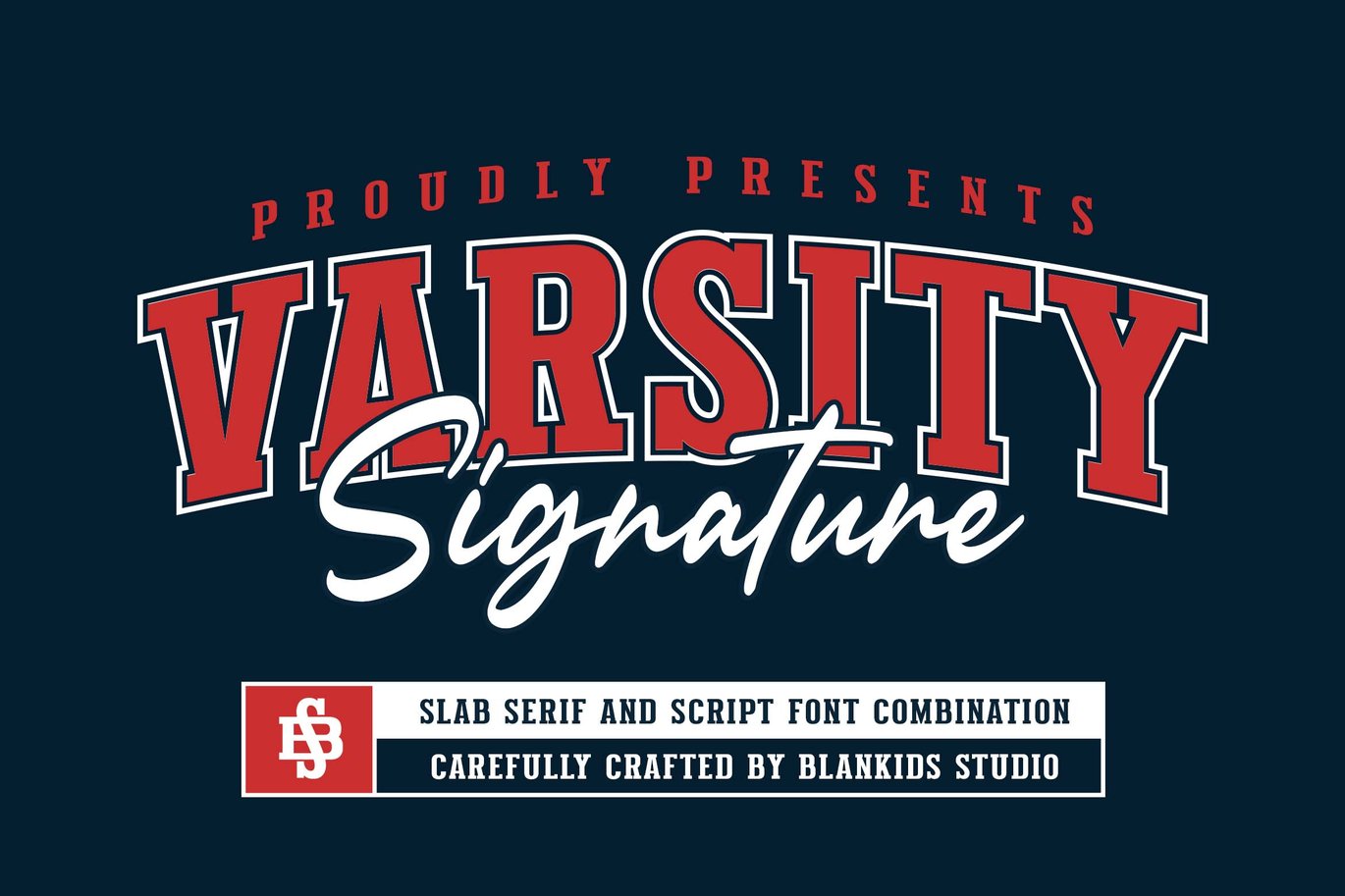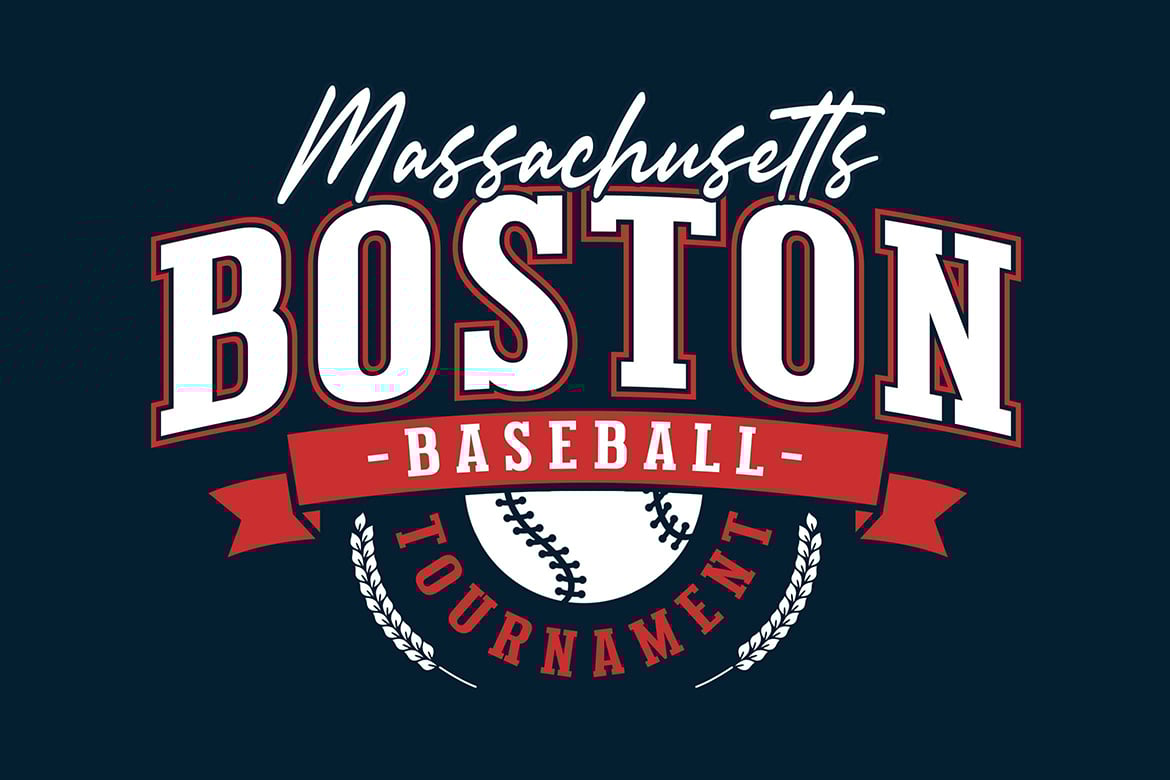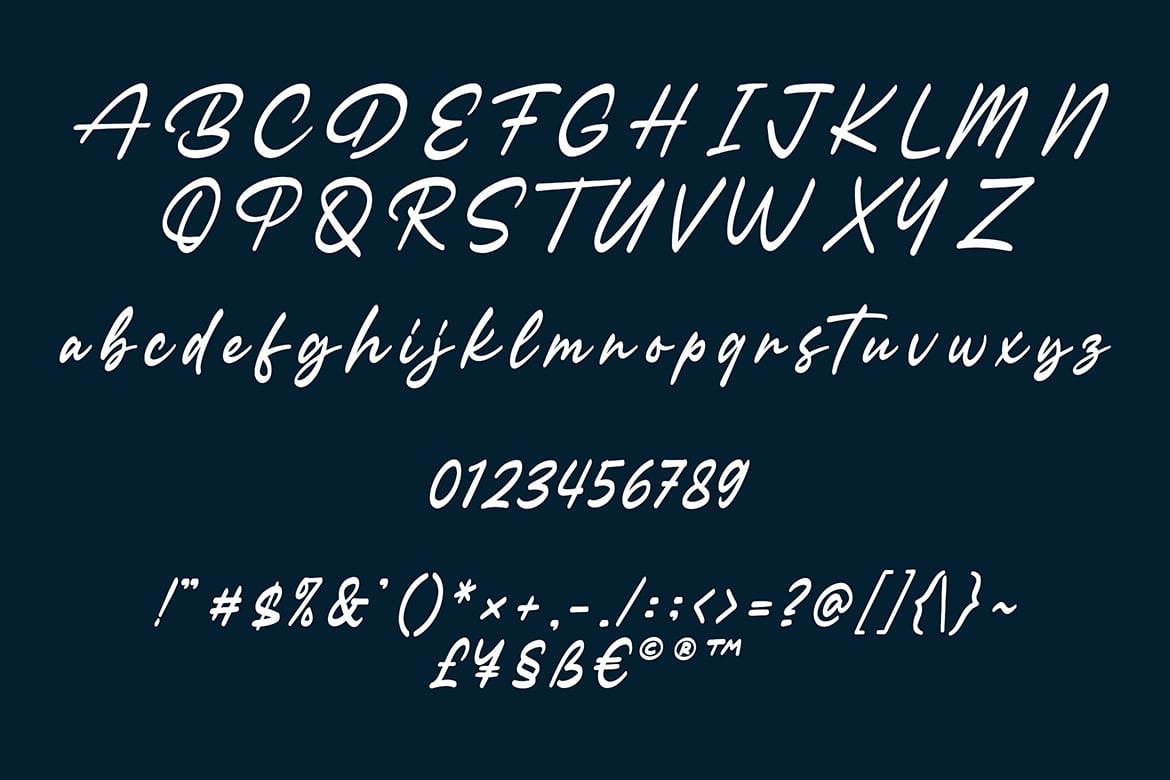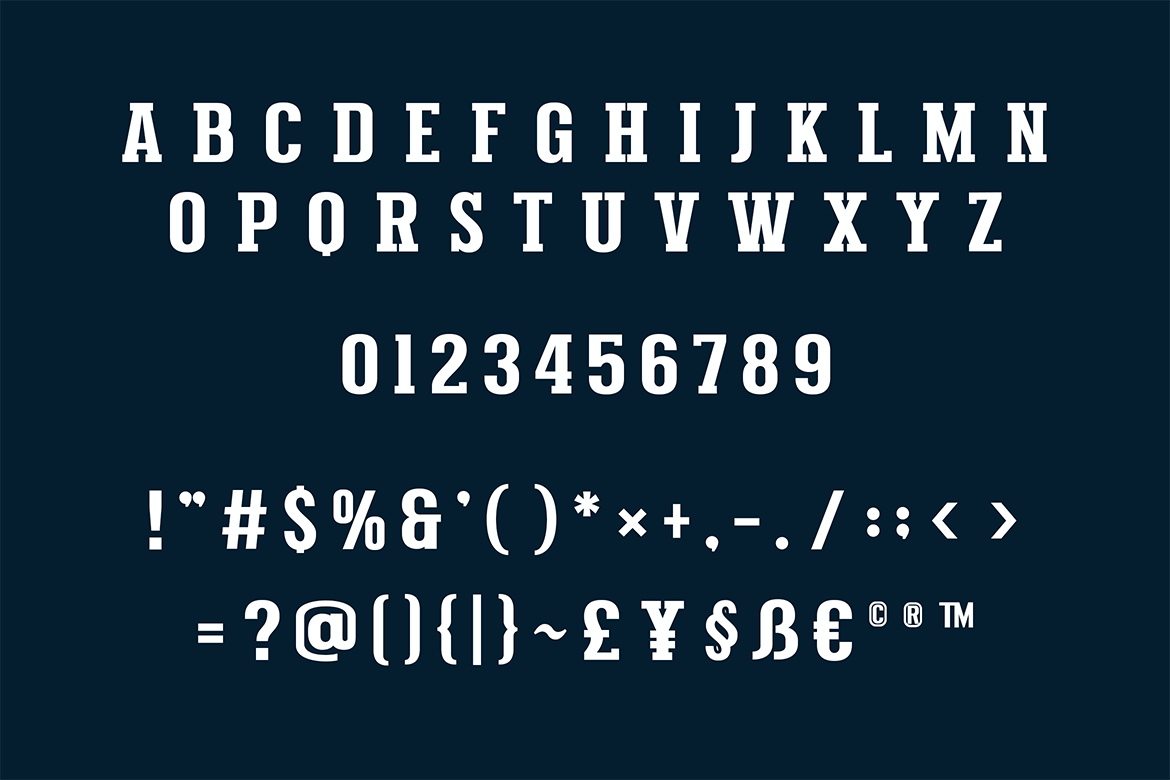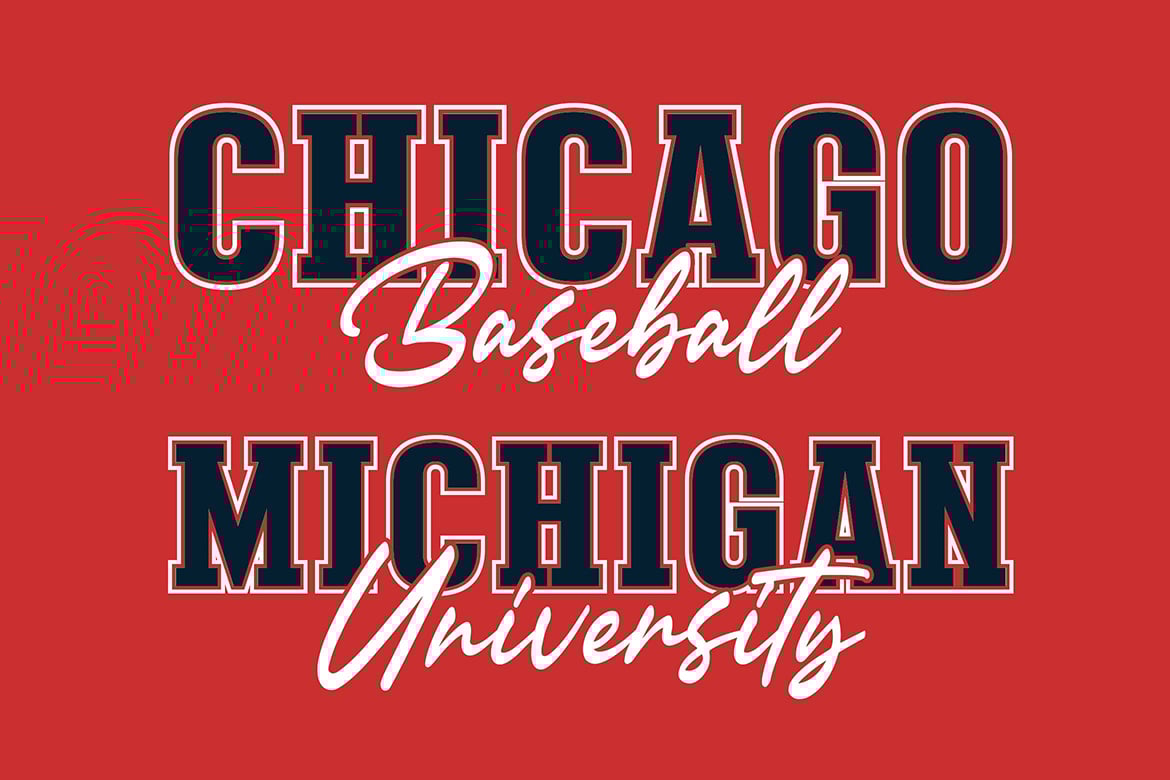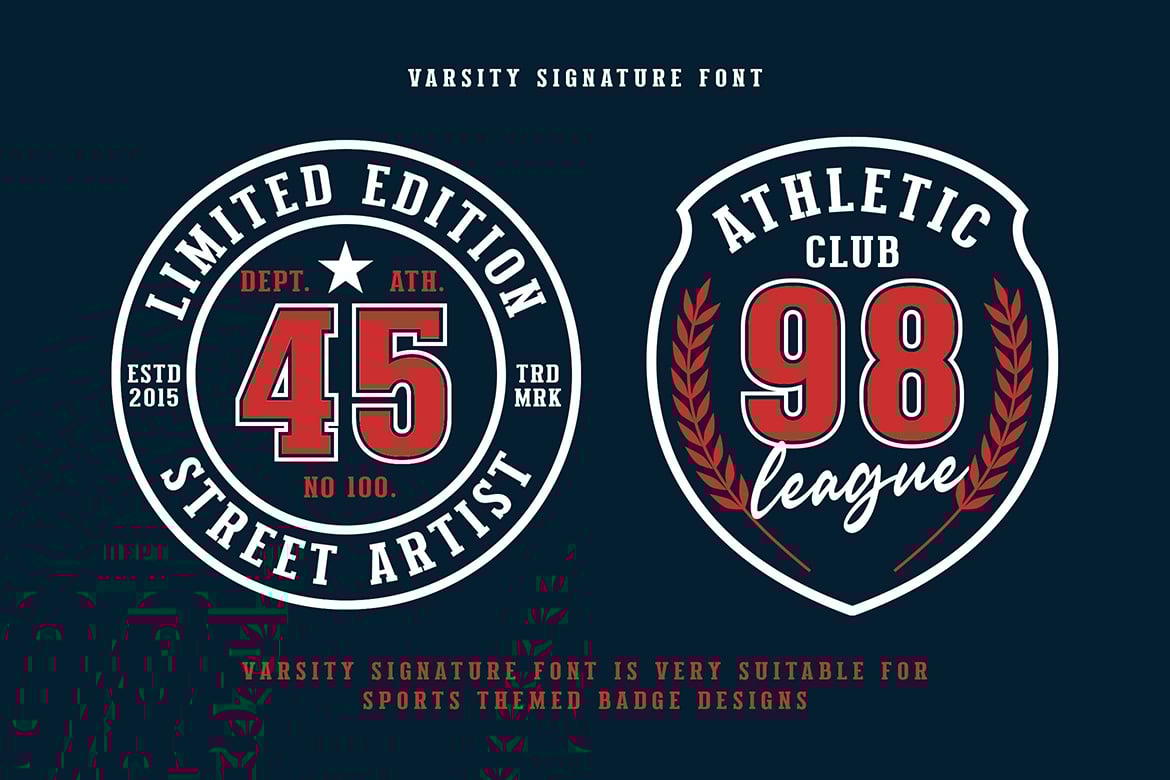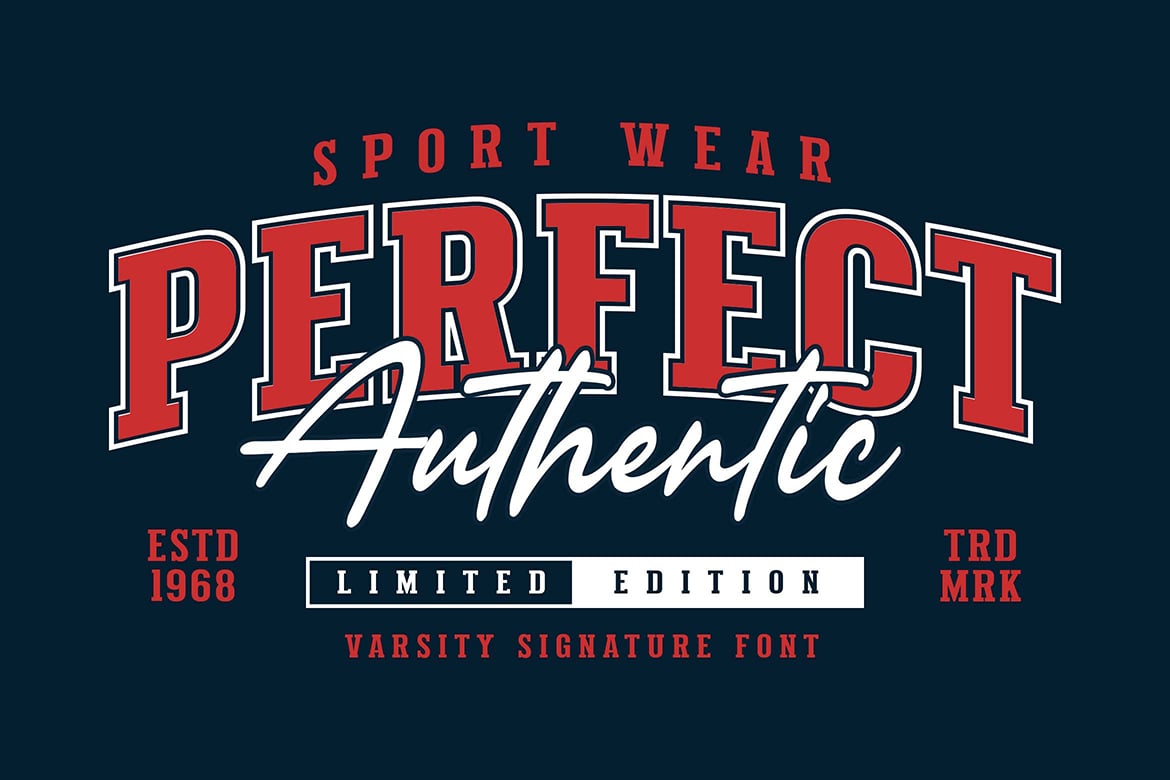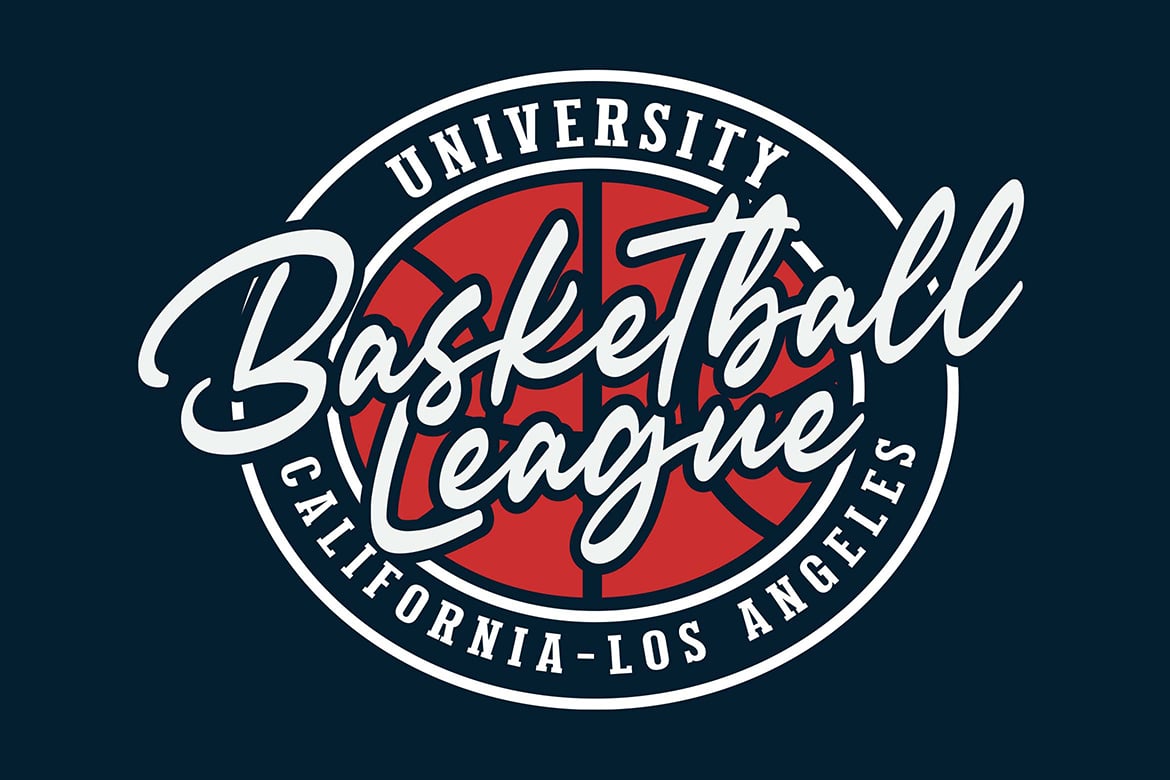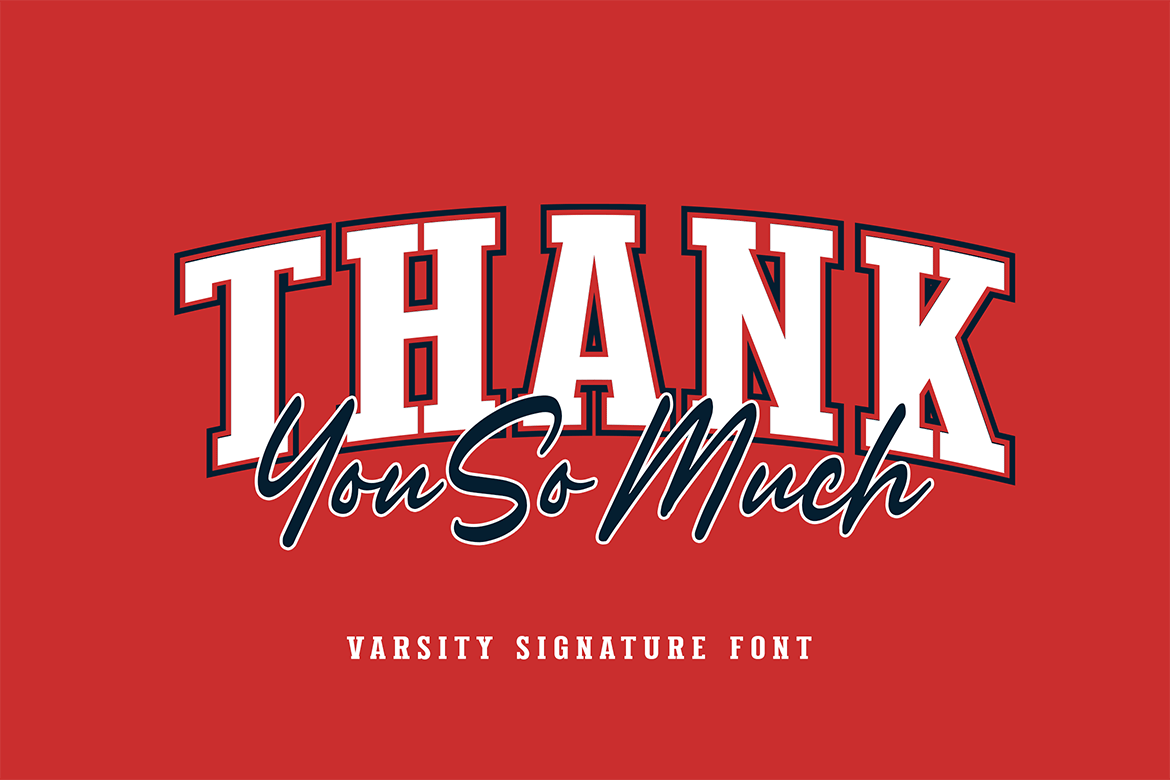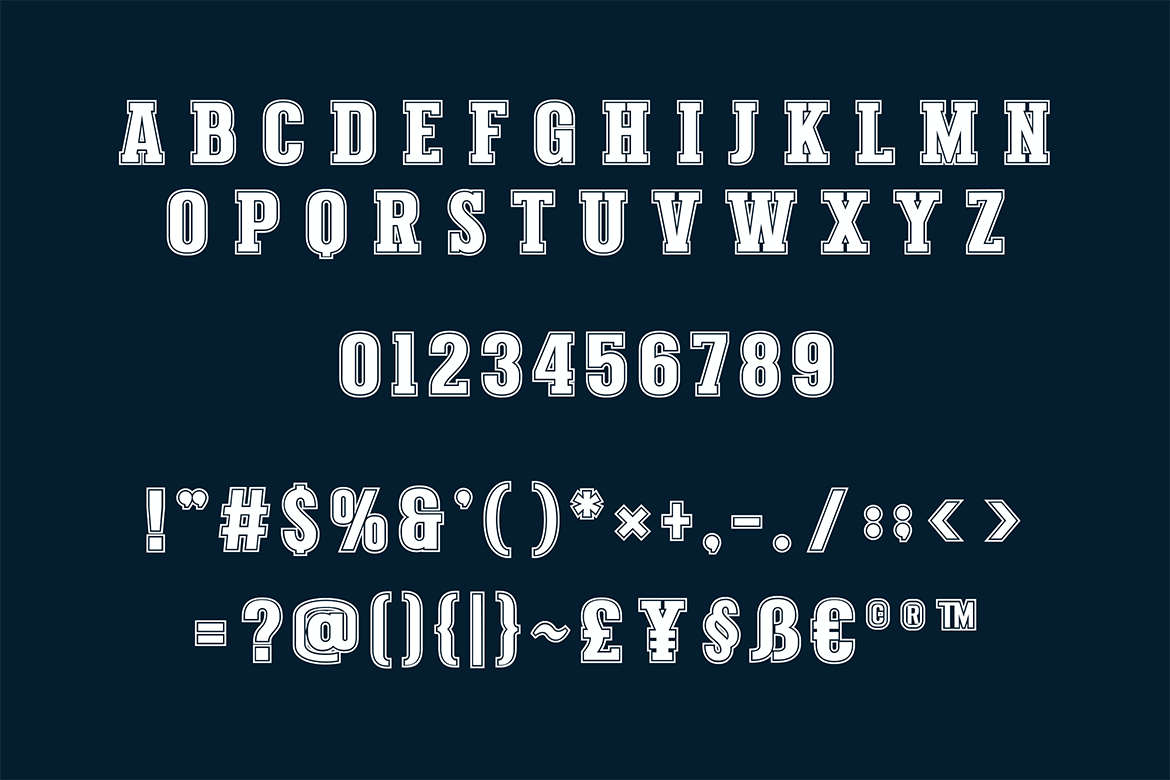
Varsity Signatue a College Font Combination
Hello, awesome people! This time, we have a new font called Varsity Signature, a college font combination by Blankids Studio.
Varsity Signature, a college font combination is made for any professional project branding, such as logotype, watermarks, poster, branding, promotions, product packaging, etc. Every letter has a sporty college and varsity style design. This font comes in 3 font combination.
Varsity Signature font includes a full set of sporty uppercase and lowercase letters, numerals and punctuation. This font has a sporty style. See the previews above to get some inspiration on how to use them. Happy designing!